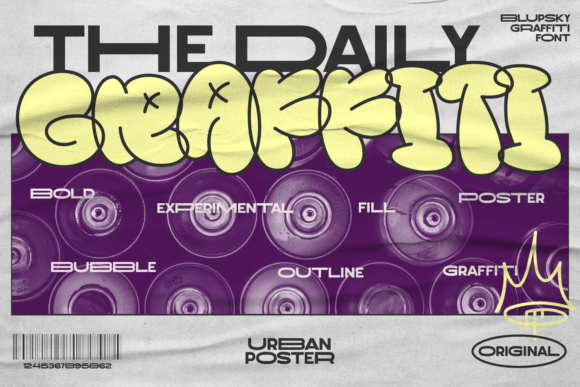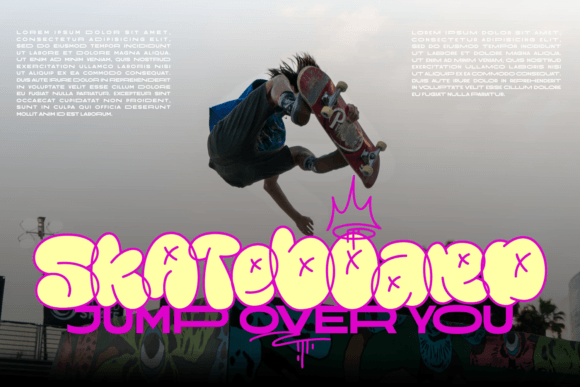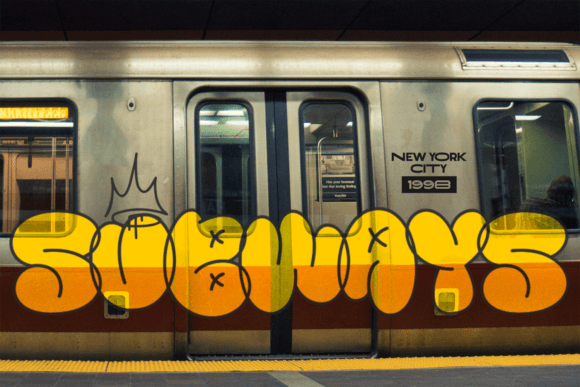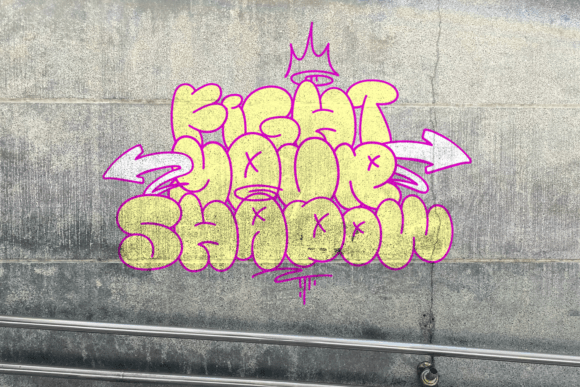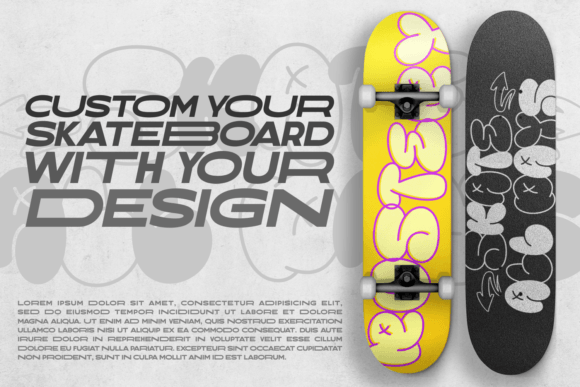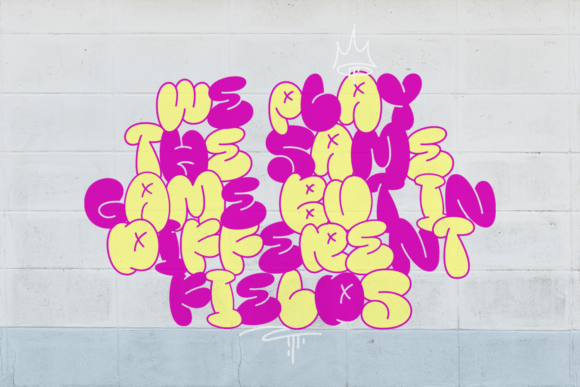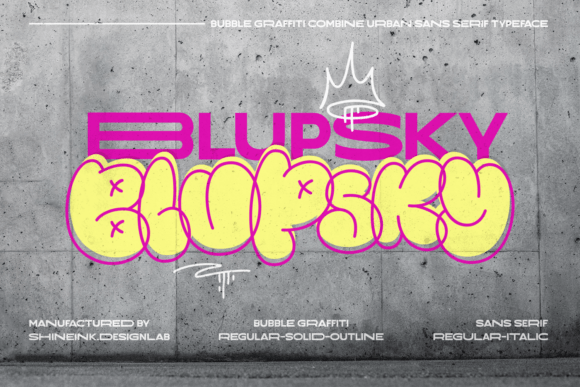
The Blupsky Font: A Vibrant Fusion of Street Art and Typography
I’ll never forget the design project that led me to discover the Blupsky font. I was working on a branding campaign for a skateboarding company, and I needed a font that captured the vibrant, urban essence of the sport. After hours of searching, I stumbled upon Blupsky, and it was love at first sight. The font’s unique blend of bubble lettering, graffiti, and sans-serif elements perfectly embodied the cool, edgy vibe I was looking for.
A Personal Review of Blupsky
- ✨ Unique fusion of styles: Blupsky seamlessly combines the playfulness of bubble lettering and graffiti with the cleanliness of a sans-serif typeface.
- ✅ High legibility: Despite its decorative elements, Blupsky remains highly readable, even at smaller font sizes.
- 🎨 Versatility: This font family is perfect for a wide range of creative projects, from branding and advertising to packaging and merchandise.
Of course, no font is perfect, and Blupsky has a few minor quirks:
- 🤔 Limited use of italics: While Blupsky does offer italic styles, they might not be as refined as those found in other font families.
- ⚠️ Occasional kerning issues: As with any font, you might encounter some kerning issues, especially when using larger font sizes or unusual character combinations.
Exploring Blupsky’s OpenType Features
One of the standout features of Blupsky is its robust OpenType support. By accessing the font’s glyphs and stylistic alternates, you can:
- Add playful touches to your text, such as colorful swashes or quirky ligatures.
- Experiment with different font styles and variations to create a unique look.
- Enhance your text with decorative elements, like graffiti-inspired accents.
Blupsky’s creator drew inspiration from the vibrant world of street art, skateboarding, and urban culture. By fusing these influences with traditional typography, they crafted a font that’s both playful and legible. Whether you’re a designer, crafter, or creative hobbyist, Blupsky is an excellent choice for projects that require a cool, eye-catching aesthetic.
| Font Name | Blupsky Font |
| Author | shineink.designlab |
| What type of projects is Blupsky best suited for? | Blupsky is perfect for creative projects that require a playful, urban aesthetic, such as branding, advertising, packaging, and merchandise. |
| Does Blupsky support OpenType features? | Yes, Blupsky has robust OpenType support, including stylistic alternates, glyphs, and ligatures. |